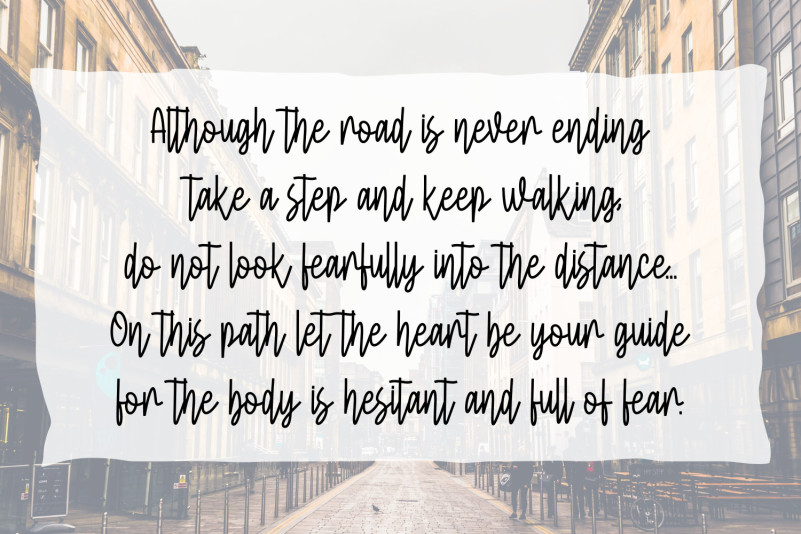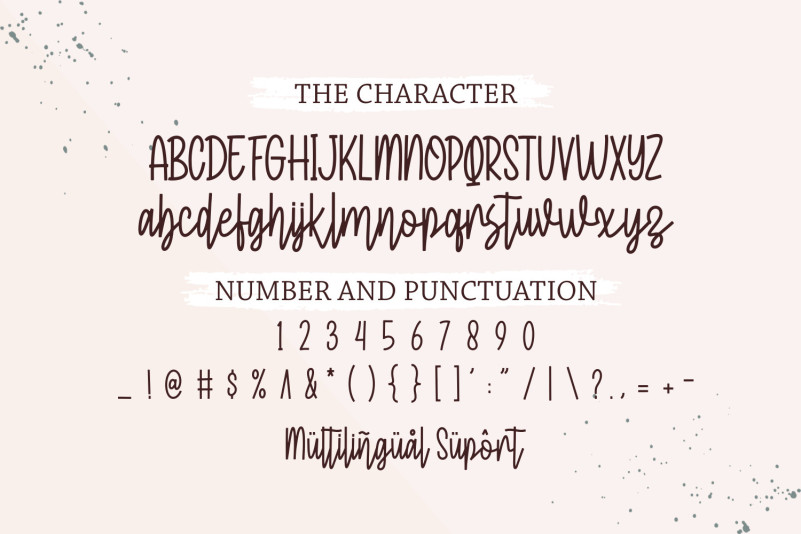
Restou Font
Restou Font – A fancy and elegant handcrafted font that create to impress your audience and makes your branding shine. Make your projects dance with this elegant and wonderful font wherever you use it. Use it for your headings, logos, ads, printed quotes, packaging, and even your website or social media branding. Every letter has a unique and beautiful touch, which will make your design come alive!